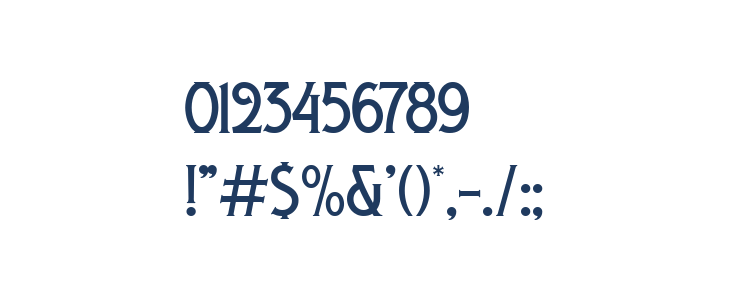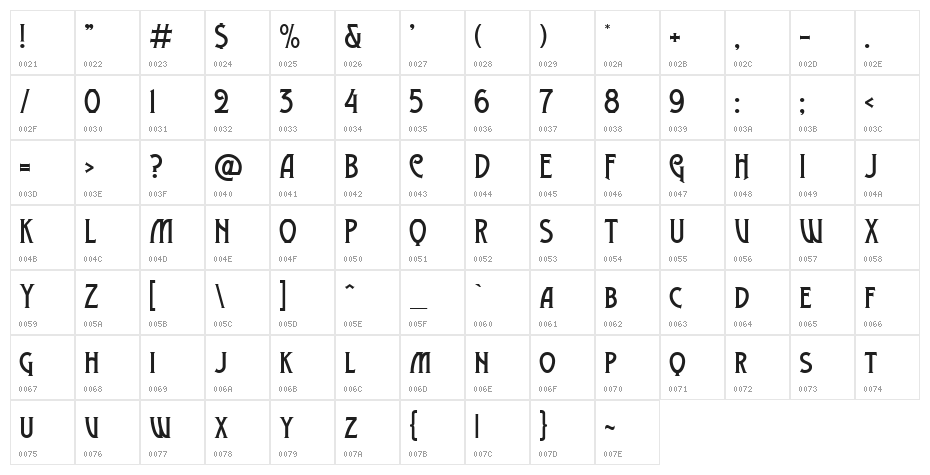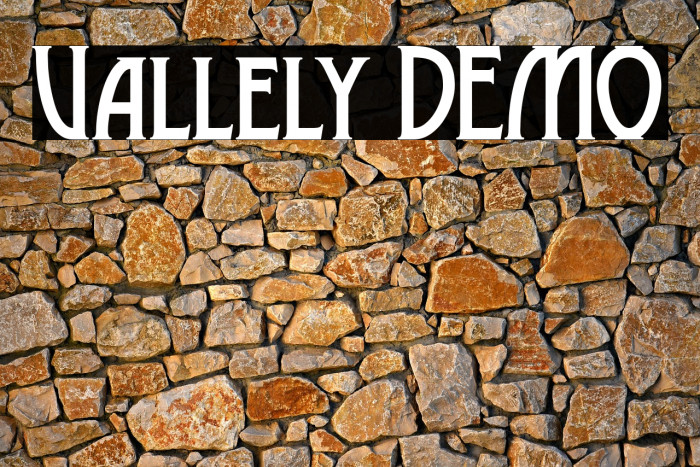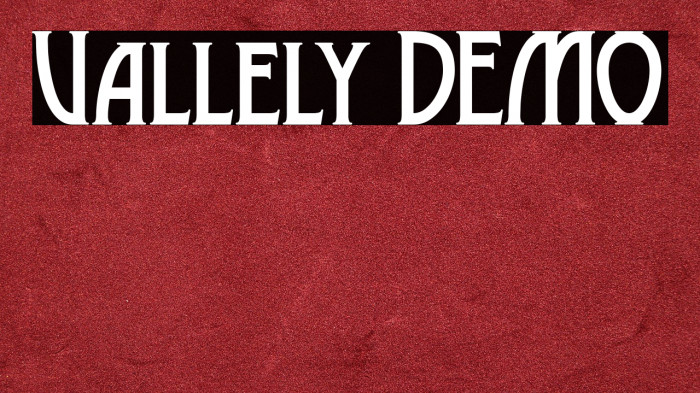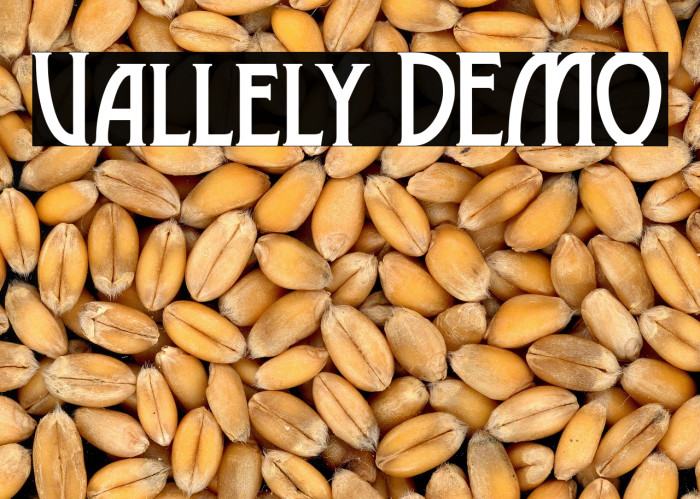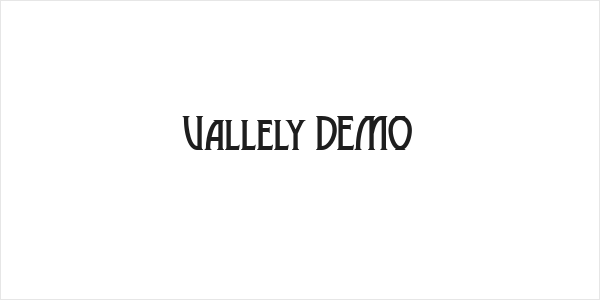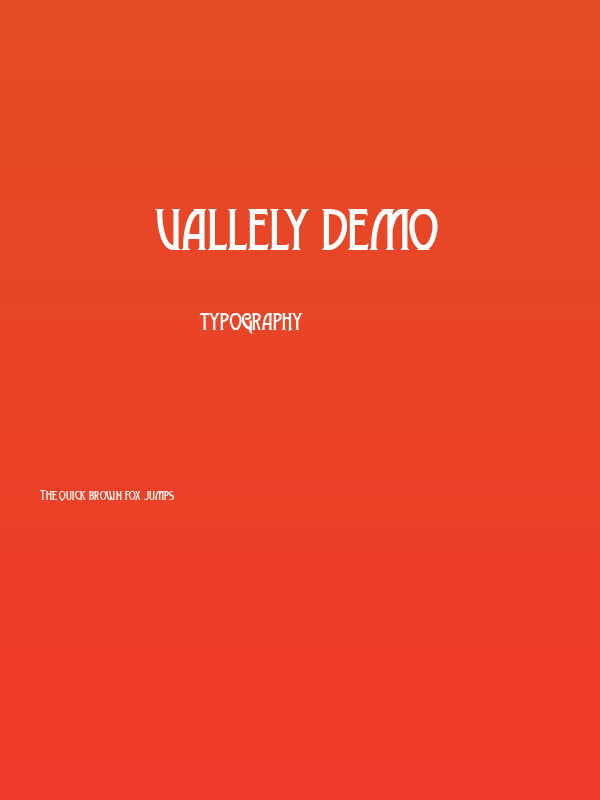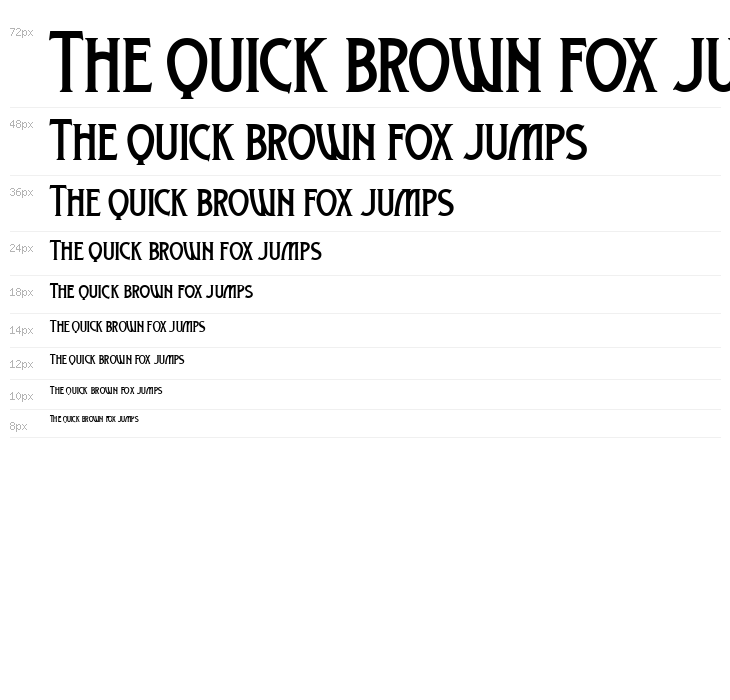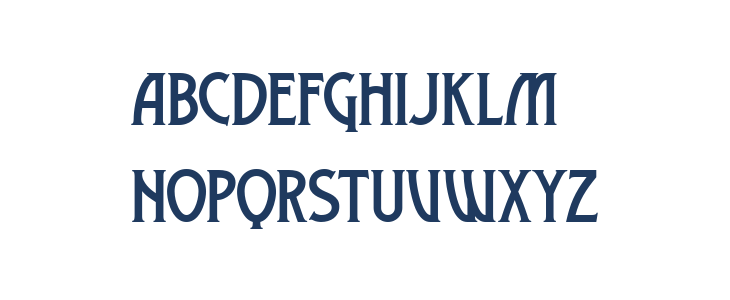
Vallely DEMO Font
Vallely DEMO Description
This font features a unique blend of traditional and modern elements, characterized by its sharp, angular serifs and bold, sweeping curves. The uppercase letters are particularly striking, with a strong presence and a slightly condensed form that gives them a commanding appearance. The lowercase letters maintain a consistent style, offering a harmonious balance between readability and aesthetic appeal. The numerals are distinct and easily recognizable, while the special characters add a touch of elegance and flair. Overall, this font exudes a sense of sophistication and authority, making it suitable for a variety of design applications.